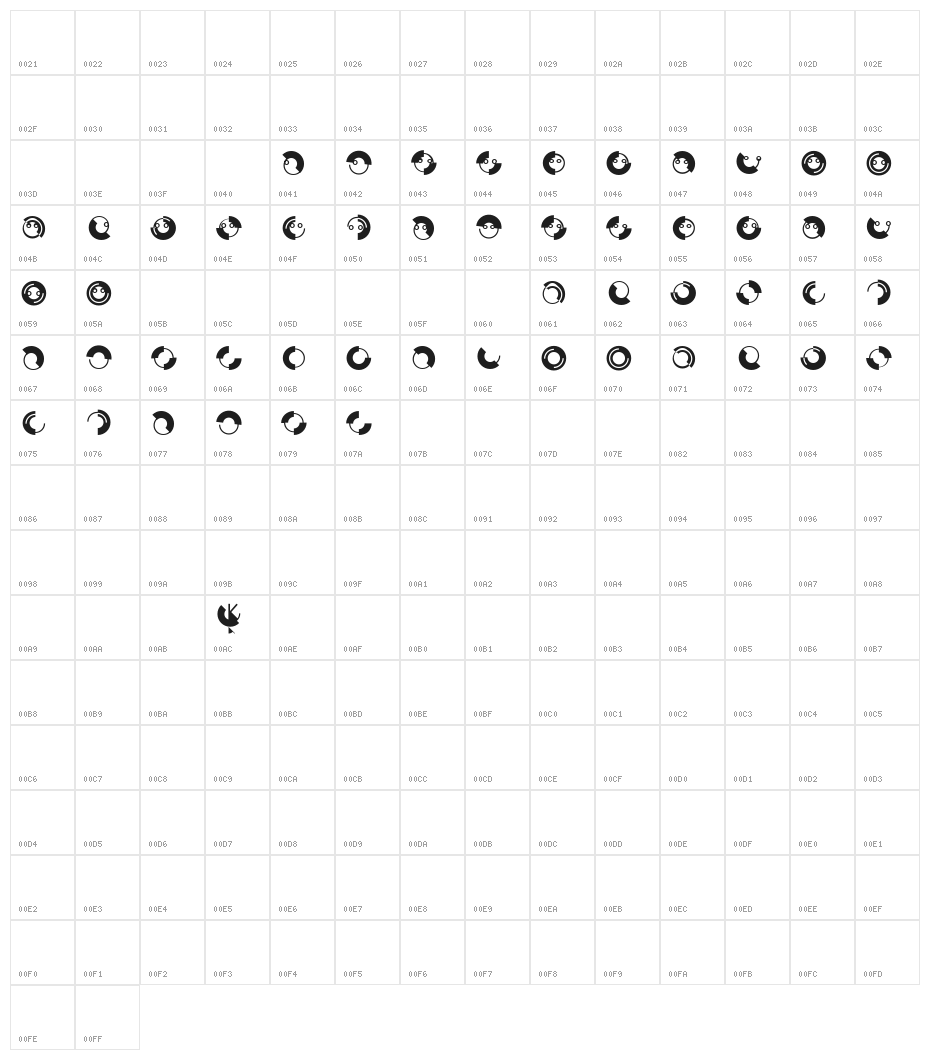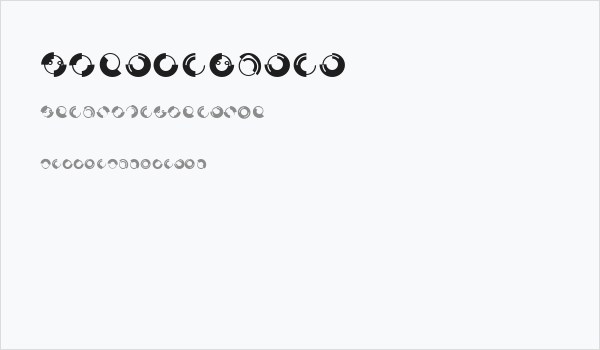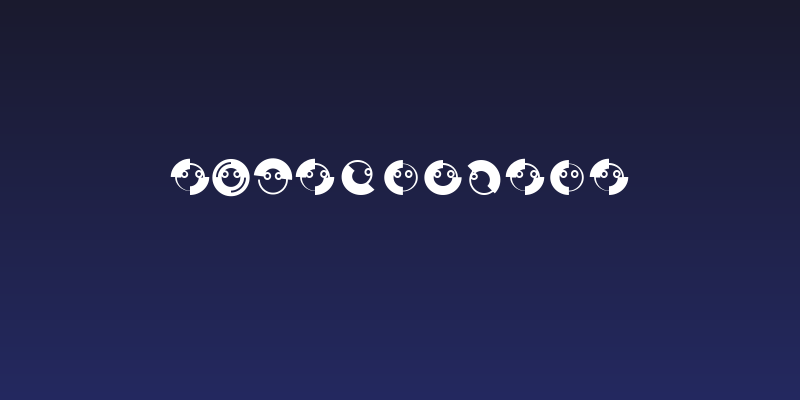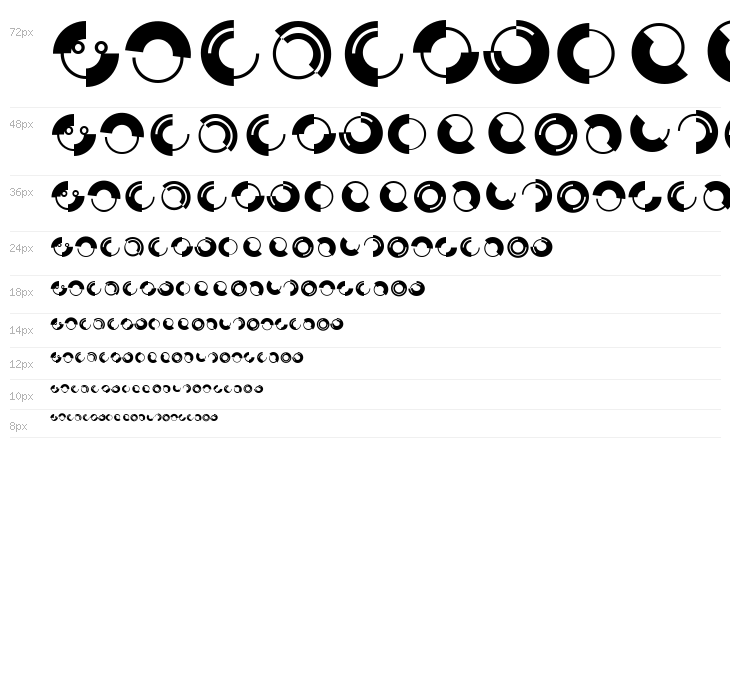
CircleFaces Font
| Gesamtstil | Playful, Whimsical, Decorative |
| Anwendungsfall | Logos, Posters, Headlines |
| Vorgeschlagene Projekte | Ideal for children's books, playful branding, themed events, or creative posters. |